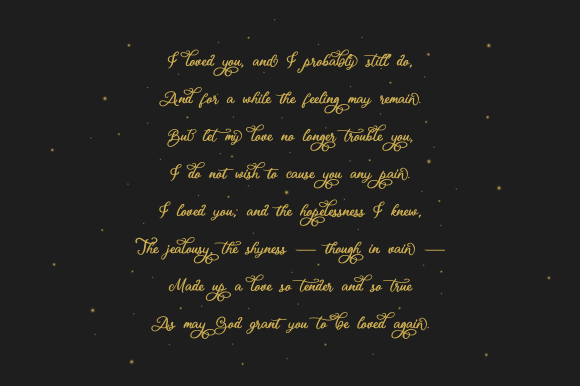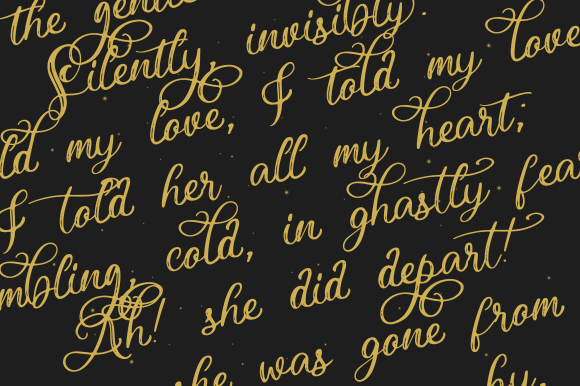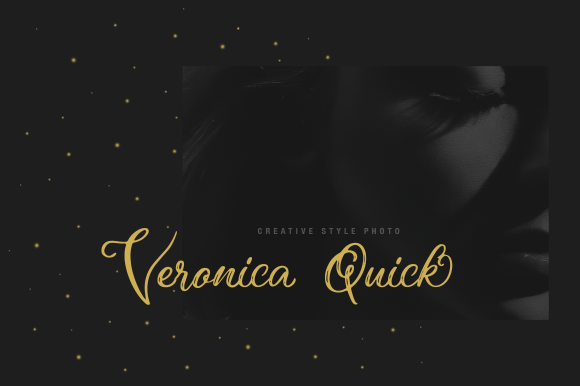
Introduction to Royality Font
Royality is a stylish and delicate script font.
It has a clean, thin and smooth vibe and it will be a hit for any design that you want to add it to This font is PUA encoded which means you can access all of the glyphs and swashes with ease.